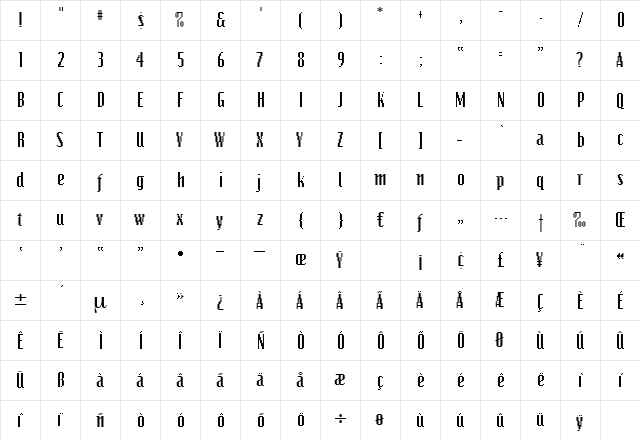
Maryland Regular
Design Context for Maryland Typeface
Maryland offers clean, dependable letterforms without strong stylistic allegiance, making it a practical choice for designers who need flexibility.